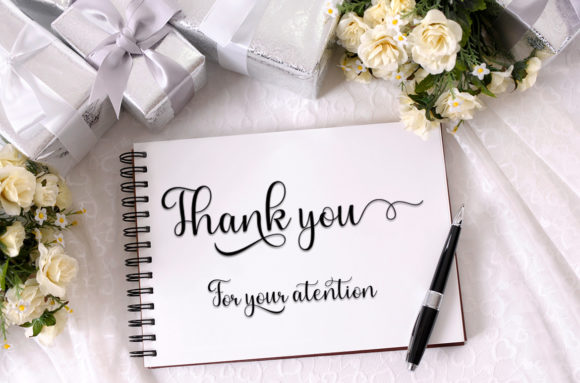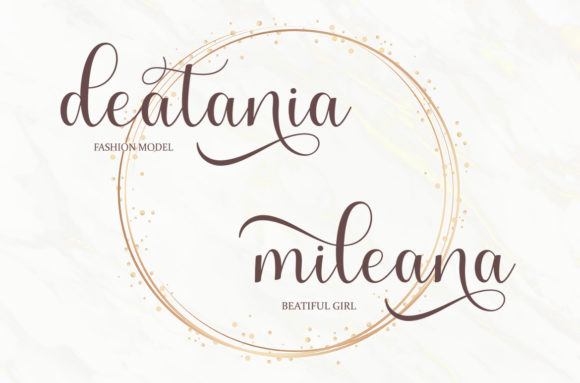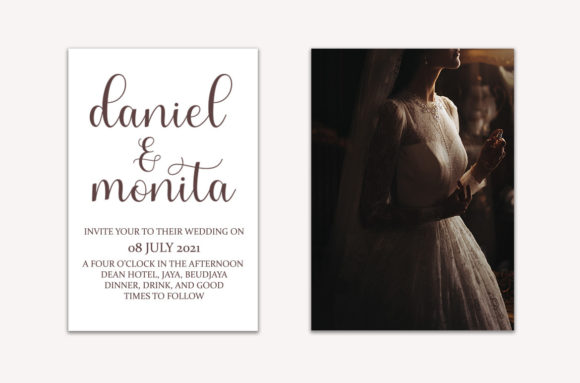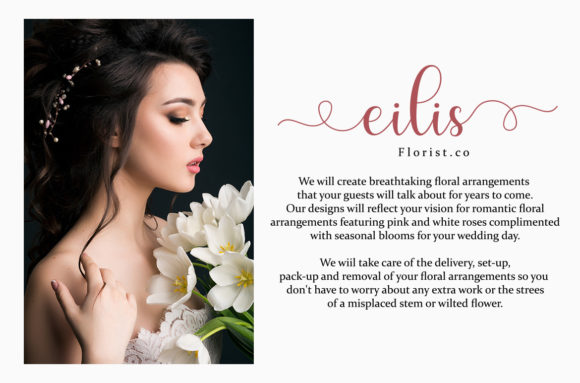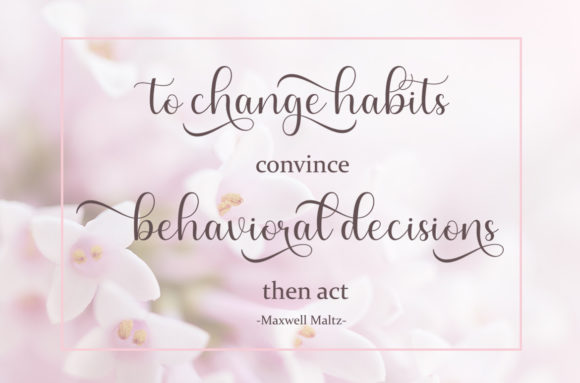
Wardani Script Font
About Wardani Script Font
Wardani Script is a dazzling script font. This font is neatly crafted and highly detailed. Wardani Script is PUA encoded which means you can access all glyphs and swashes with ease!